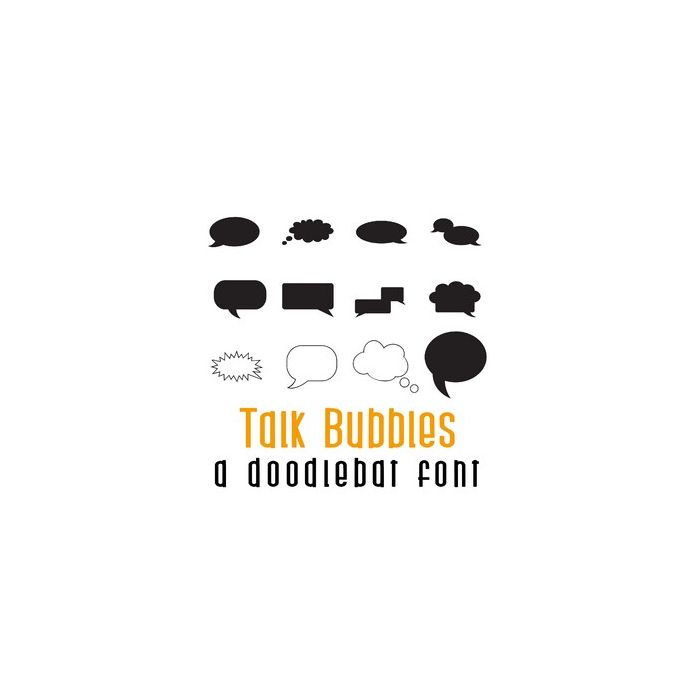
This fun doodle style doodlebat font features 26 different talk bubbles Perfect for cards, crafts, gifts, decor, scrapbook pages, planner stickers and more!